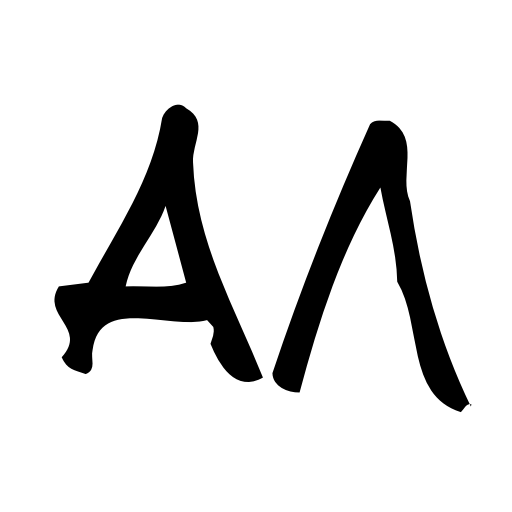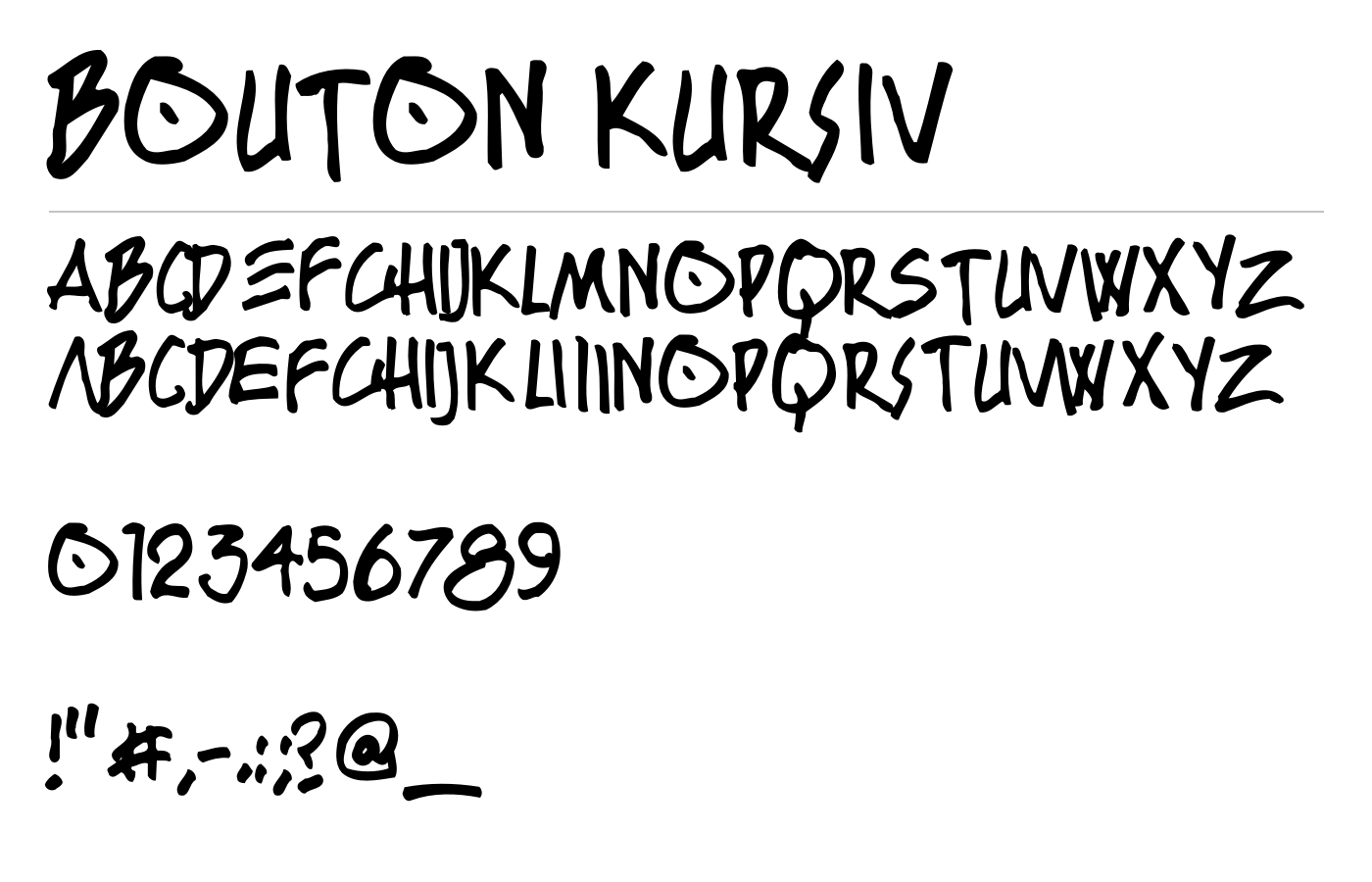
BOUTON Kursiv is a bold, hand-drawn script font with an energetic and playful character. Its irregular stroke widths and quirky letter shapes give it a casual, artistic vibe perfect for creative projects, informal branding, or youthful designs. This font works well for eye-catching headlines, posters, or any visual where a unique, expressive style is desired.
BOUTON Kursiv Font
About BOUTON Kursiv Font
| Font family | BOUTON Kursiv Font |
| Designer | Gary David Bouton |